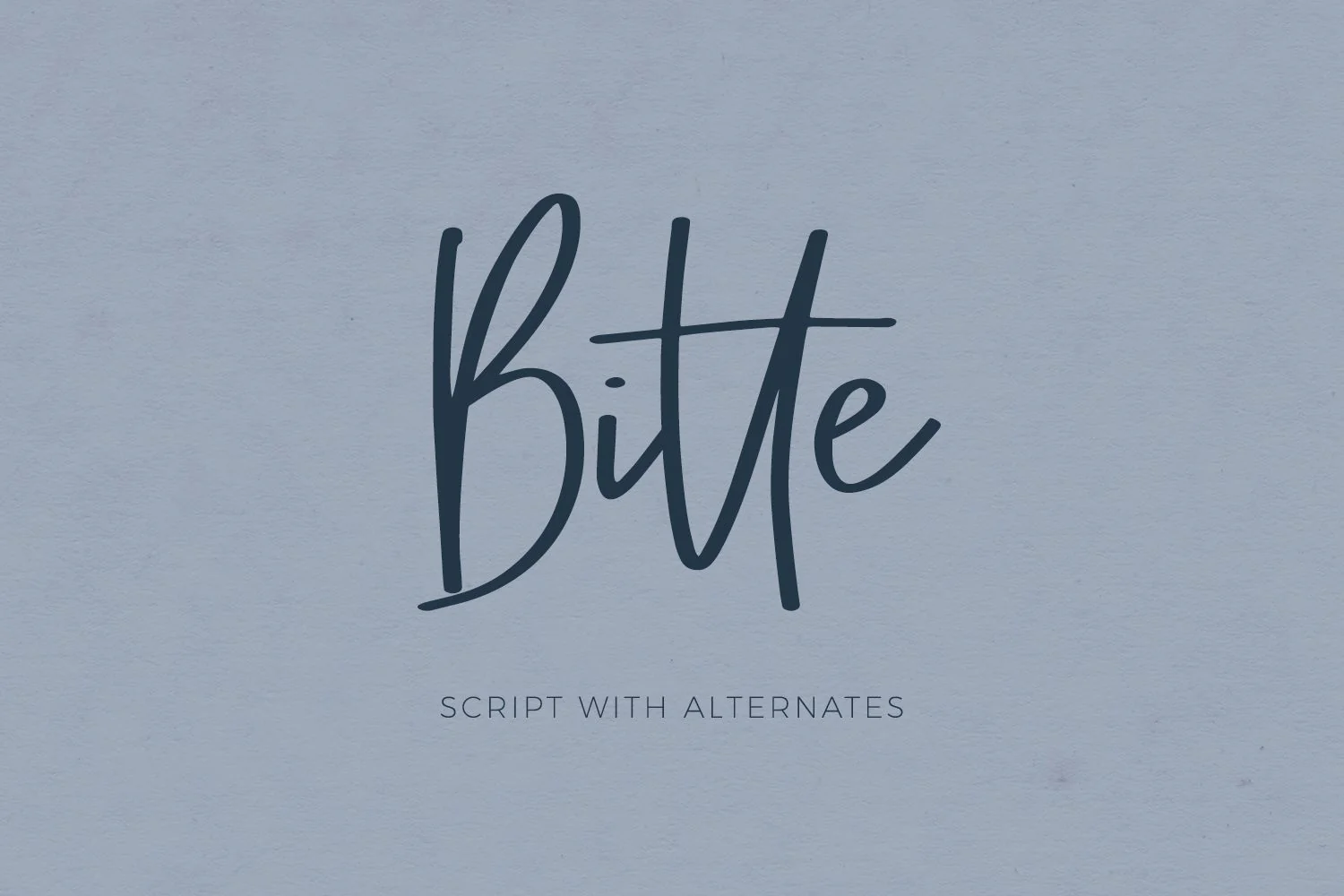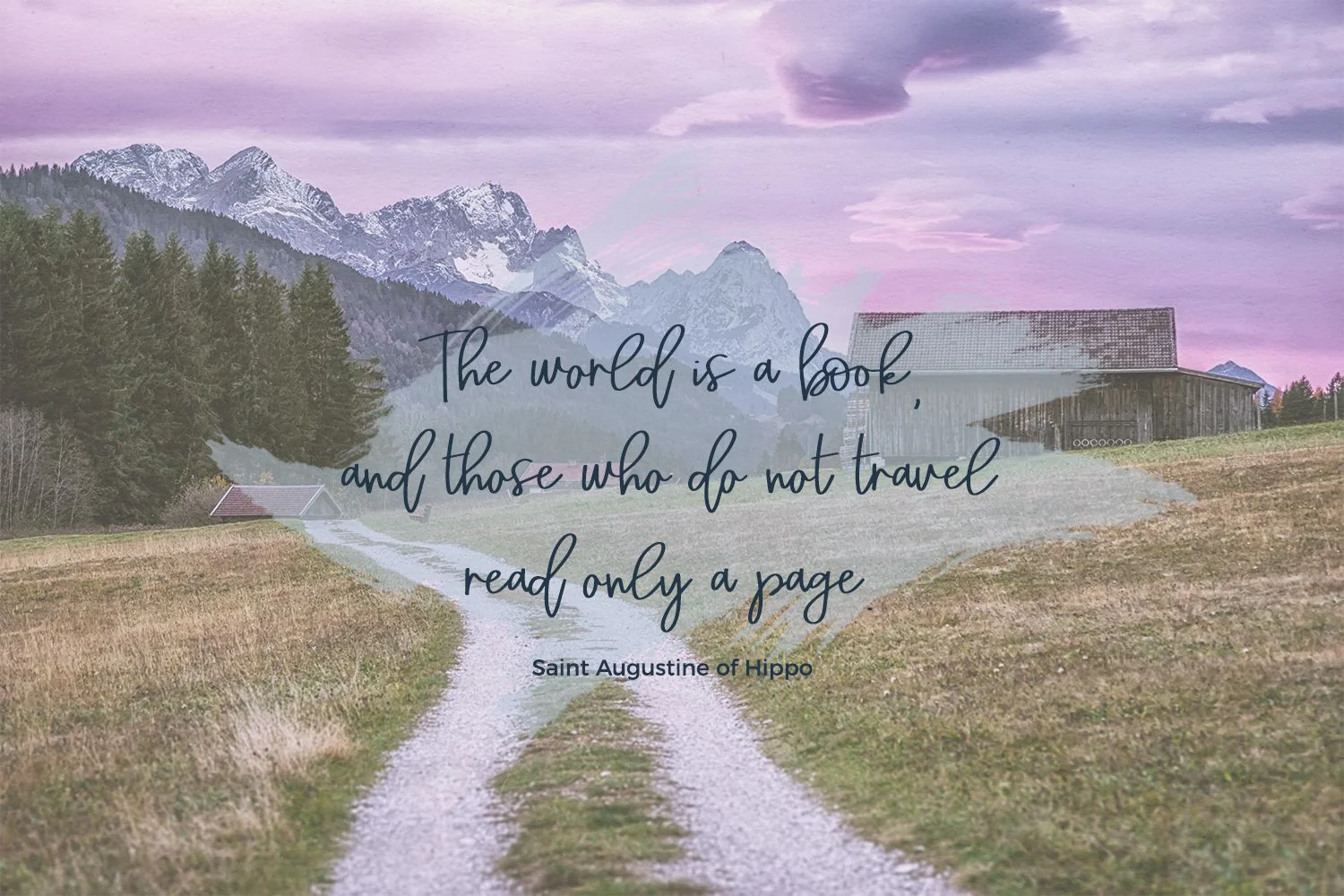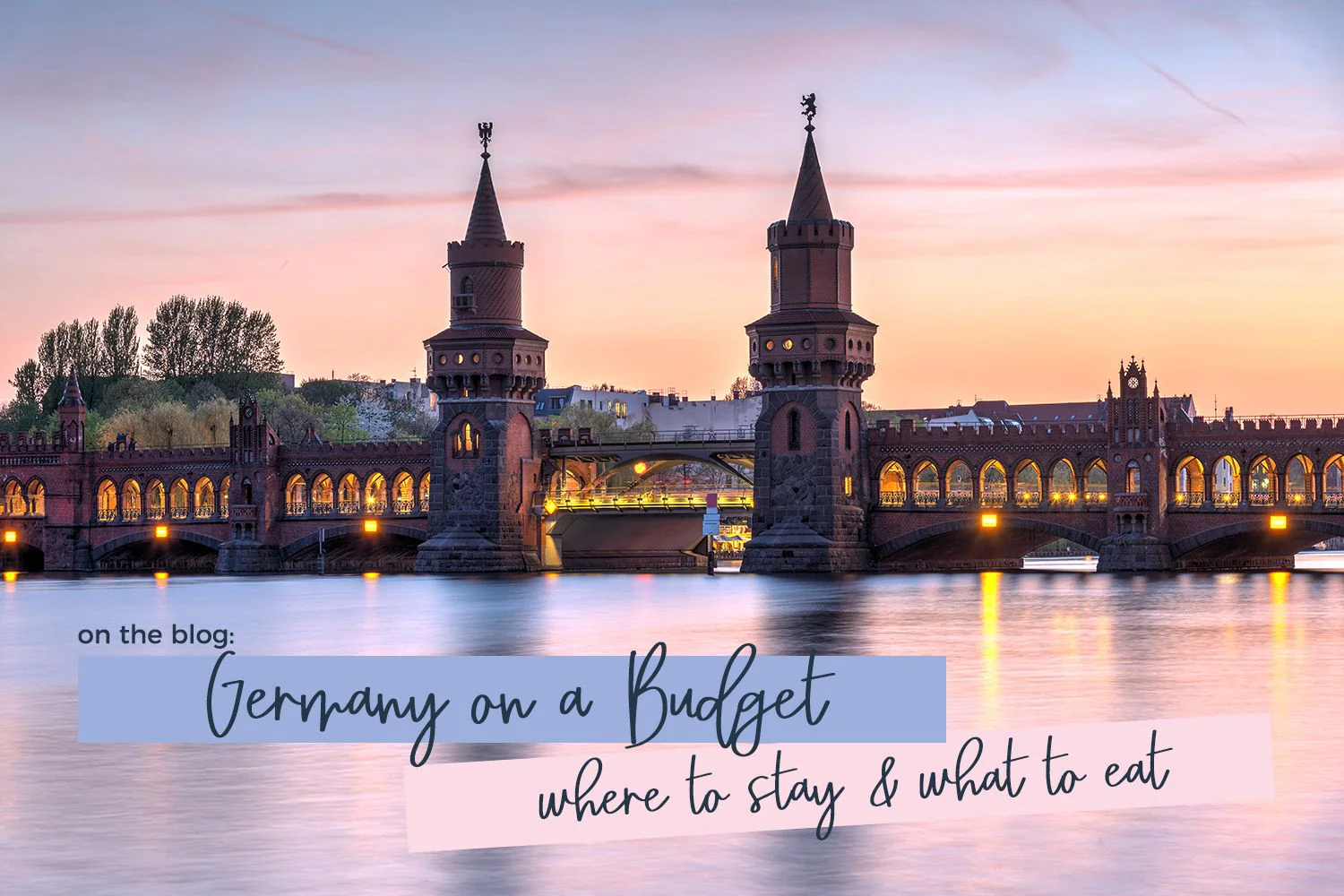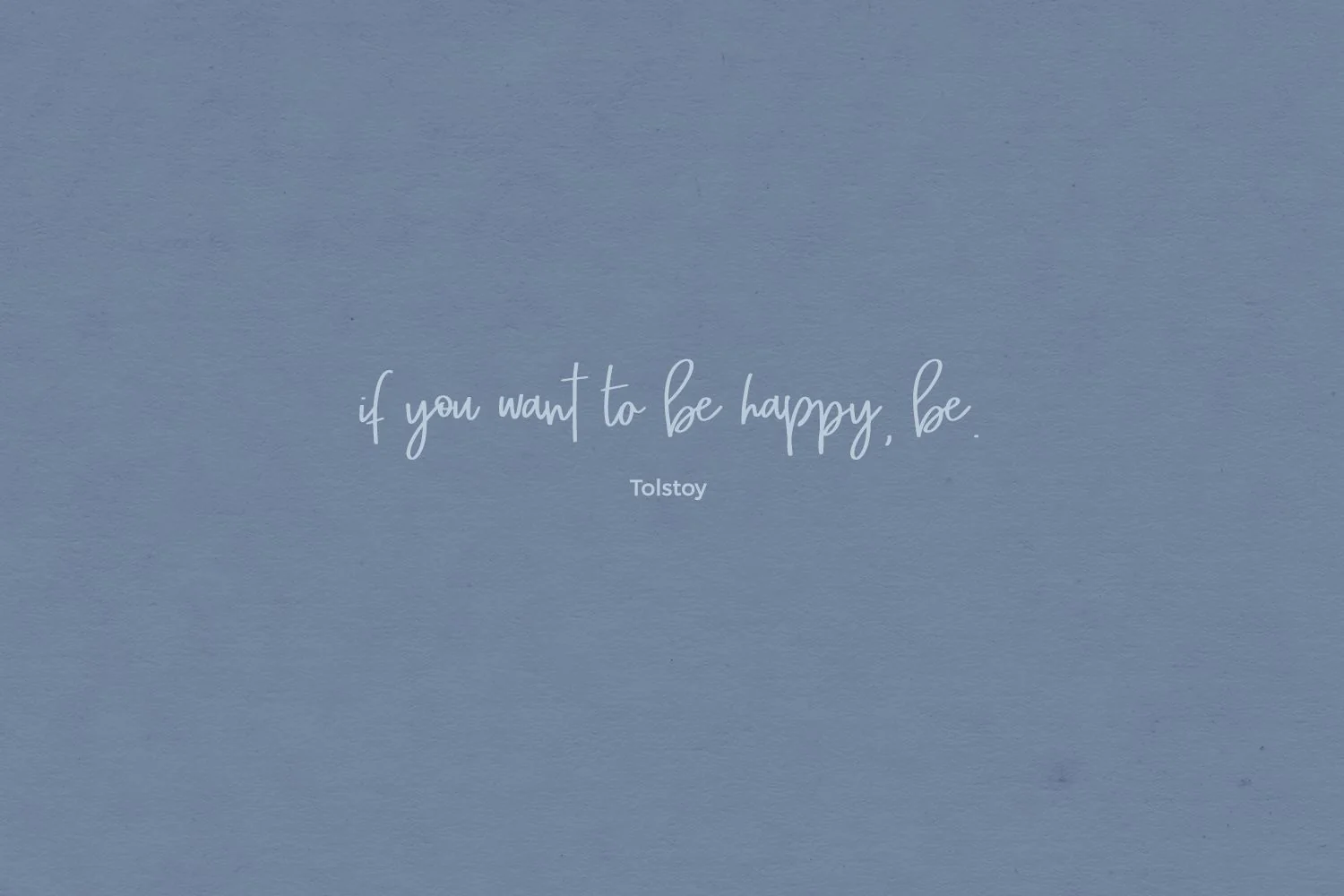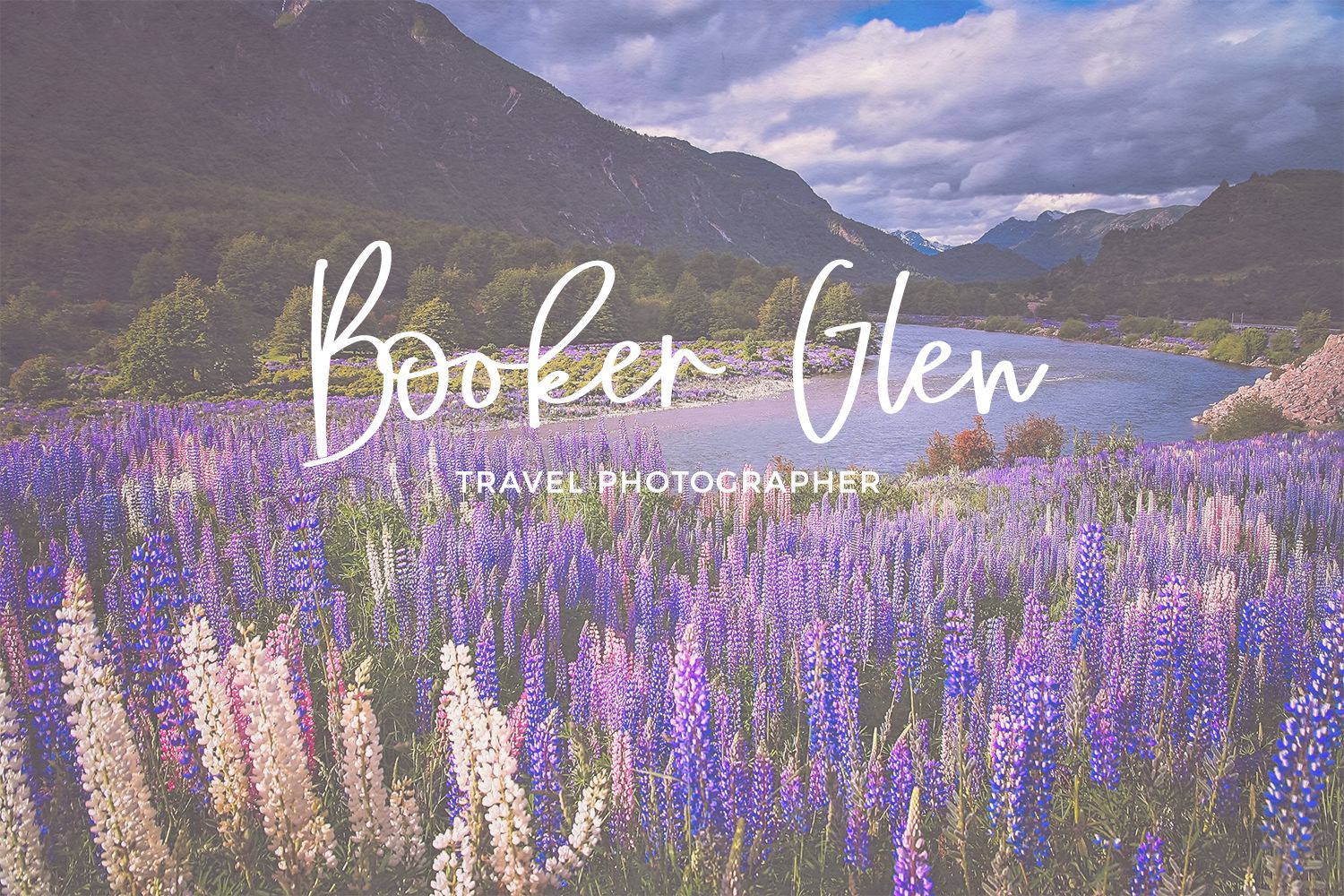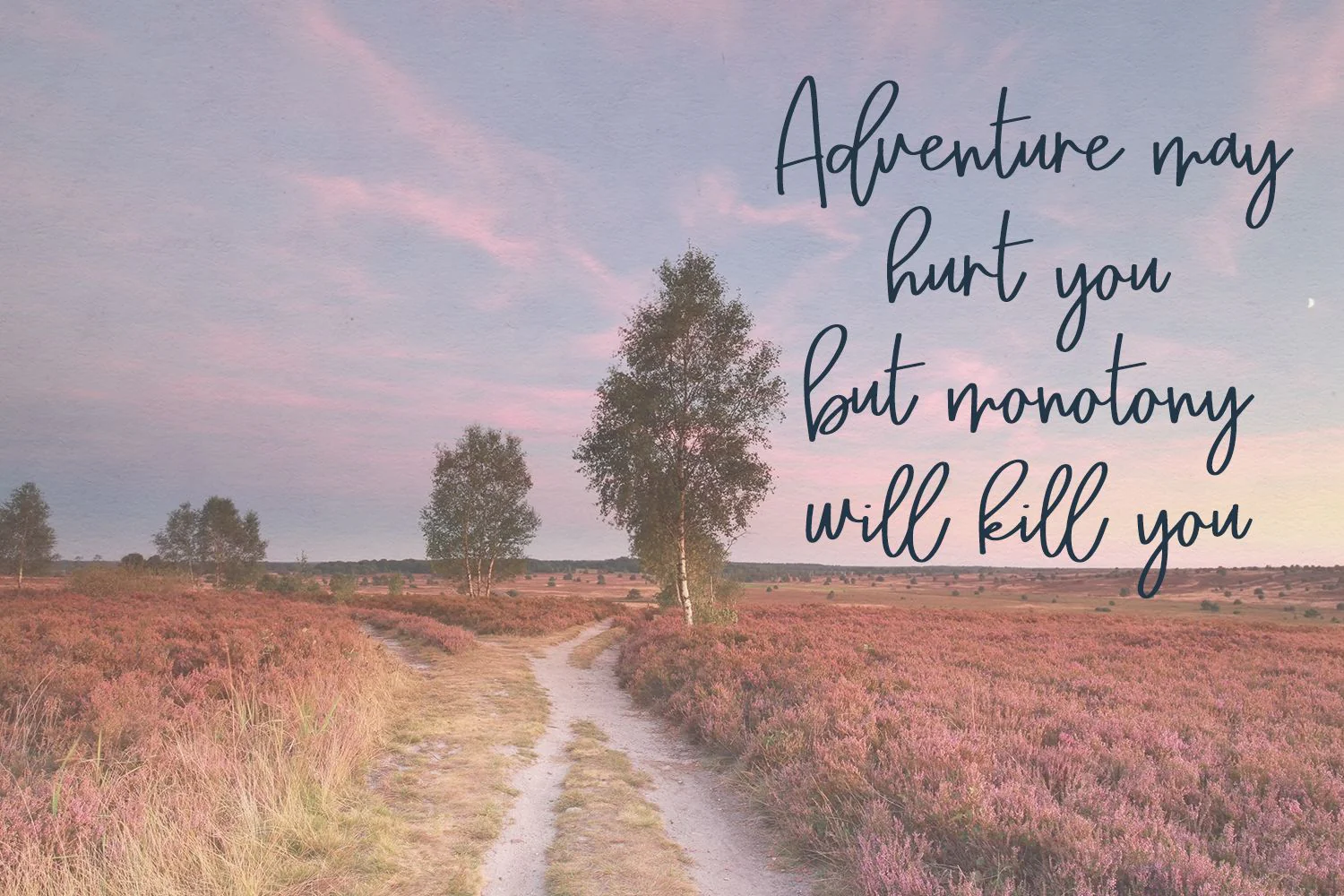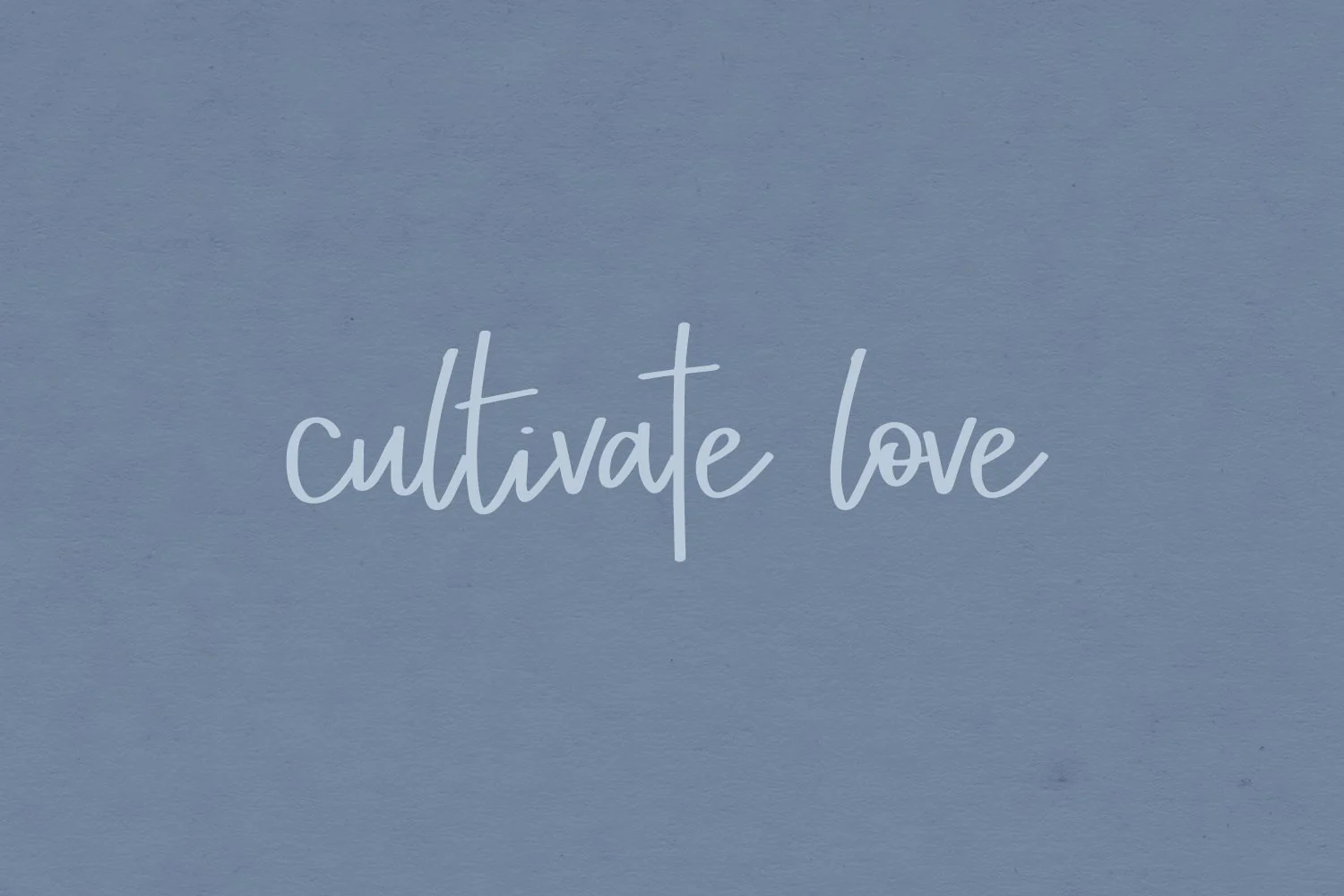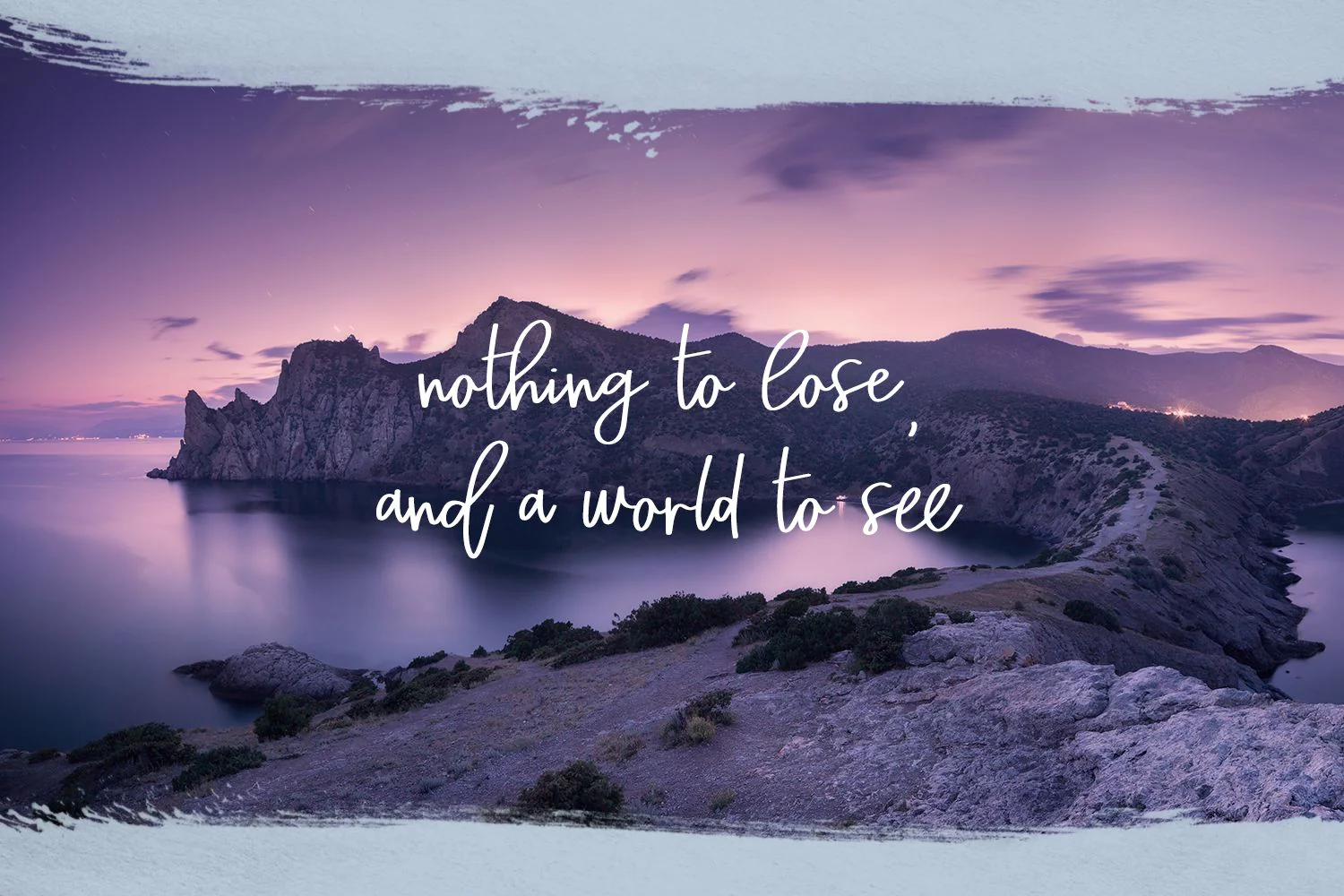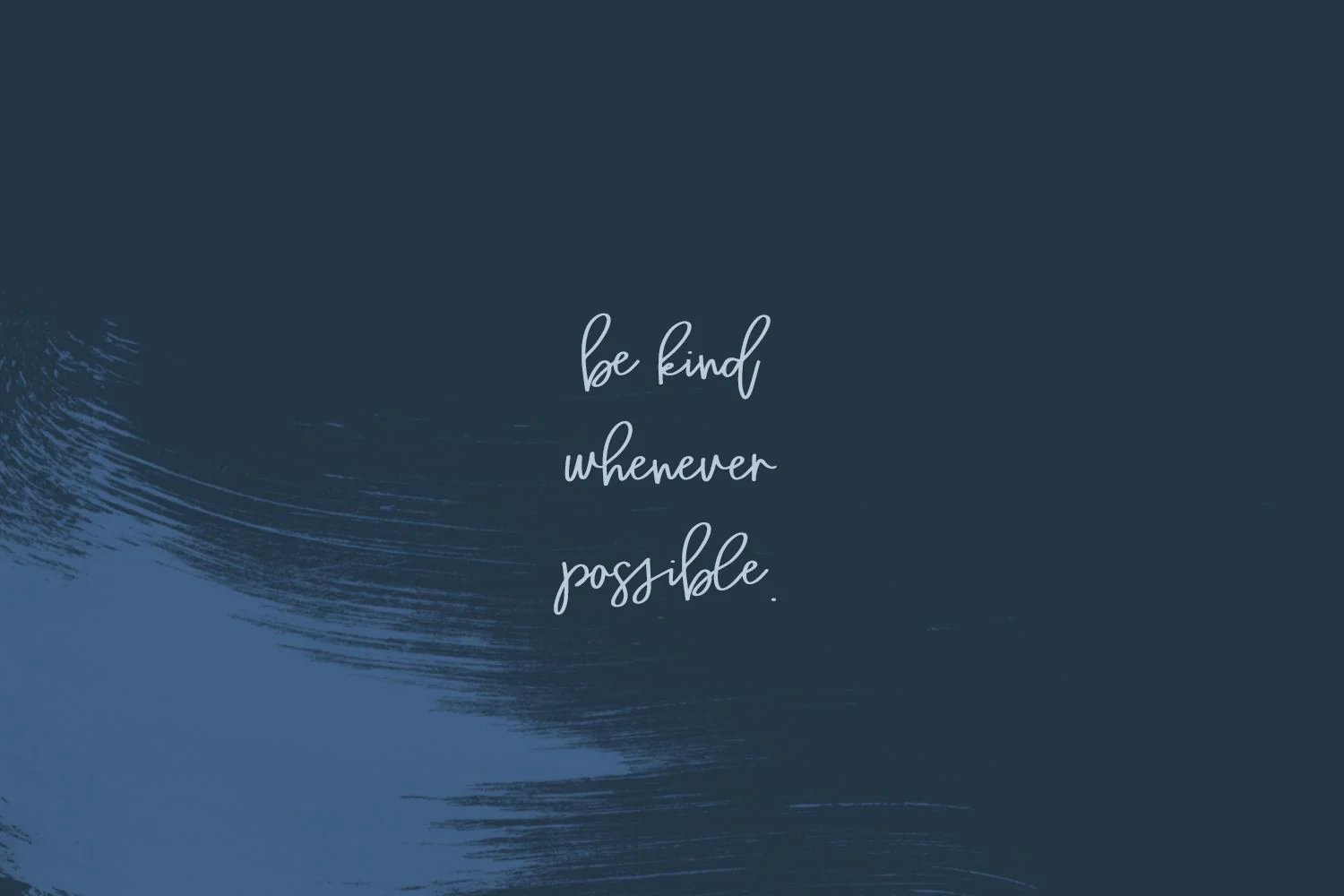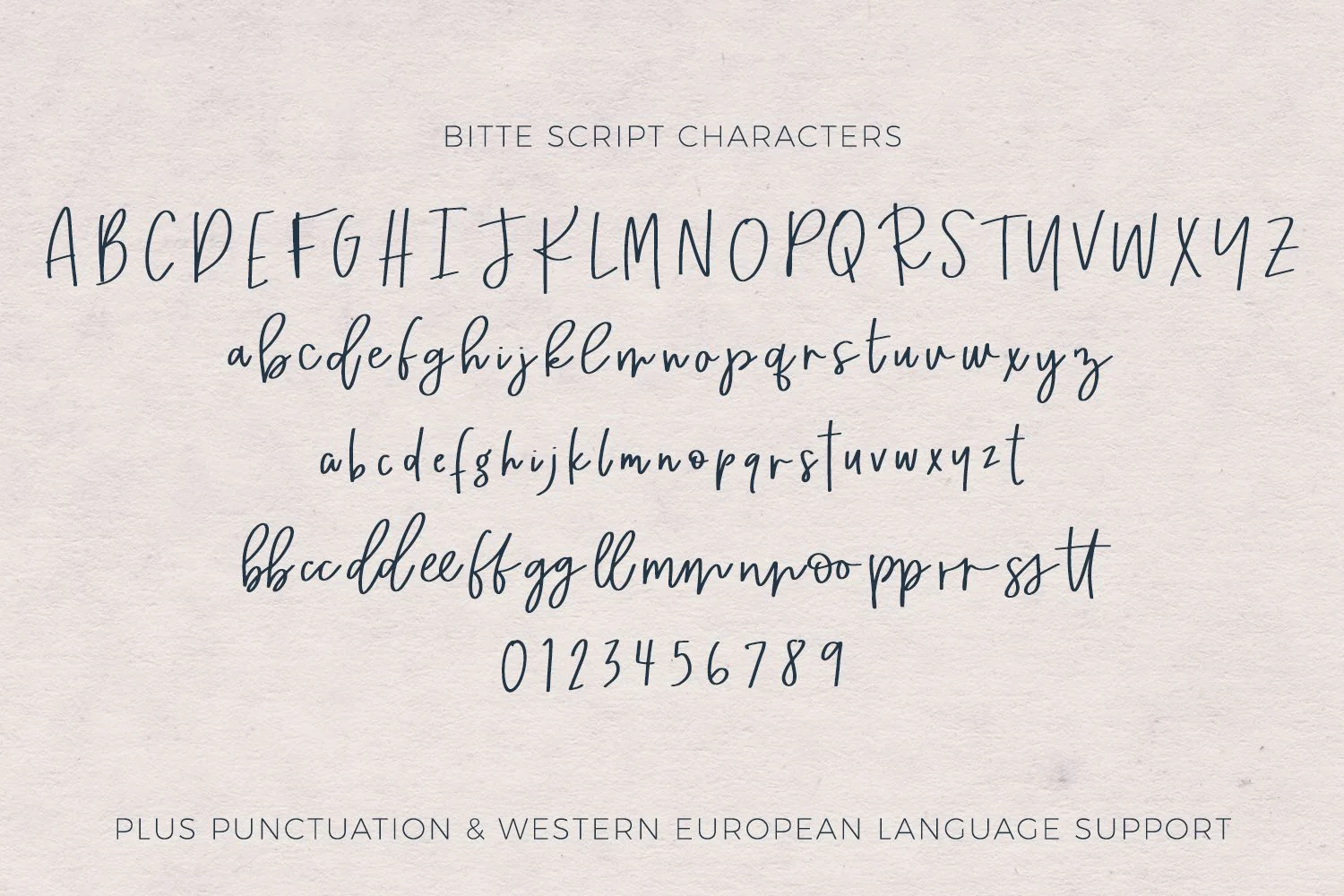
Bitte Handwriting Script Font
Introducing Bitte Handwriting Script Font, a new handlettered cursive font! Featuring lowercase alternates and ligatures, you can truly customize the look & feel of your text in a few simple clicks to maximize the “signature” style. Bitte isn’t chunky, nor is she skinny – she’s the perfect weight, and also has a very smooth edge, making it a great choice for crafting with vinyl cutting machines like Cricut or Silhouette.
Bitte Handwriting Script Font is an excellent fit for:
– logos & branding projects
– clean print design, like magazines & flyers
– header elements + websites that need a casual, effortless handwritten element
– quote graphics for social media
– crafting projects
– t-shirts, signs, ornaments, home decor, & more
Bitte includes:
– full upper + lowercase characters
– numbers + punctuation
– Western European Language Support
– 27 lowercase alternates and 14 double-letter ligatures